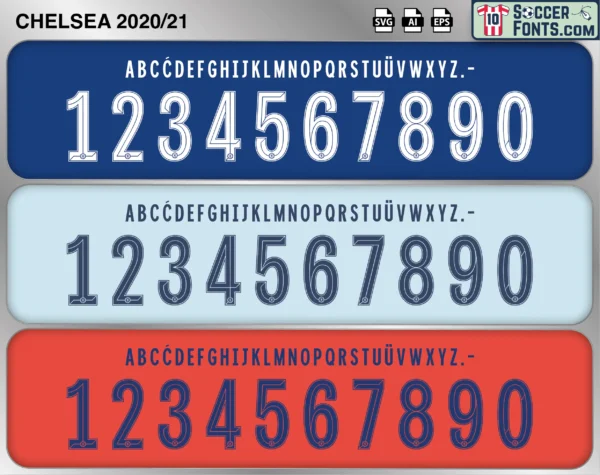
Chelsea 2020-21 Font
The Chelsea 2020-21 font is an editable soccer jersey lettering design in vector format inspired by the Chelsea kit style used during the 2020-21 football season. This football font artwork is prepared for football shirt recreations, custom jersey projects, football kit mockups and sports graphic design workflows.
Chelsea entered the 2020-21 season with one of the most heavily rebuilt squads in European football after a major summer transfer window that brought renewed expectations to Stamford Bridge. The club added players such as Kai Havertz, Timo Werner, Ben Chilwell and Thiago Silva to a squad already featuring Mason Mount, Reece James, N’Golo Kanté and Christian Pulisic. The season began under Frank Lampard before Thomas Tuchel took over midway through the campaign and transformed Chelsea into one of the strongest defensive teams in Europe.
The Chelsea 2020-21 font became associated with one of the club’s most memorable modern European campaigns as Chelsea won the UEFA Champions League for the second time in club history. The season included major knockout victories against Atlético Madrid, Porto and Real Madrid before the Champions League final victory against Manchester City in Porto. Kai Havertz scored the winning goal in a final that became one of the defining moments of modern Chelsea football culture. Chelsea shirts from the 2020-21 era remain especially popular among football shirt collectors and supporters because of their connection with Champions League success, modern Premier League football and one of the club’s most important contemporary football seasons.